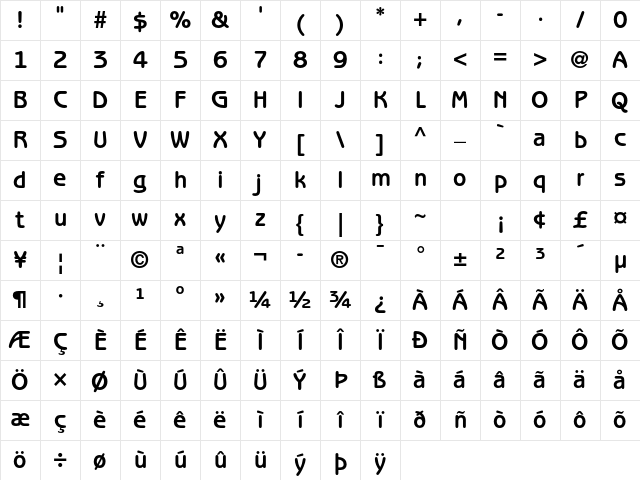
ITC Benguiat Gothic Std Bold
Designer: Ed Benguiat
Complete ITC Benguiat Gothic Std Bold glyph index. Displaying only characters natively supported by ITC Benguiat Gothic Std Bold font.
Design Context for ITC Benguiat Gothic Std
ITC Benguiat Gothic Std takes a clean, functional approach - its unadorned letterforms prioritise legibility and work reliably across screen and print environments. Its bold stroke weight gives it real presence on the page.
Font Pairing: Use ITC Benguiat Gothic Std for headlines alongside a lighter-weight sans or serif for body copy to establish clear visual hierarchy.
Pro Tip: Use ITC Benguiat Gothic Std for UI labels, navigation, and short-form body copy where clean legibility is the priority.